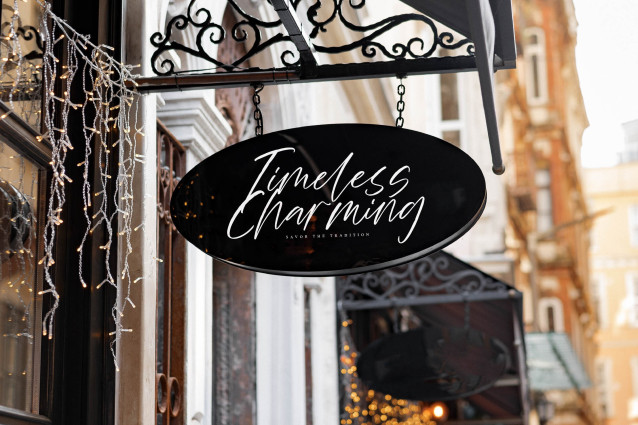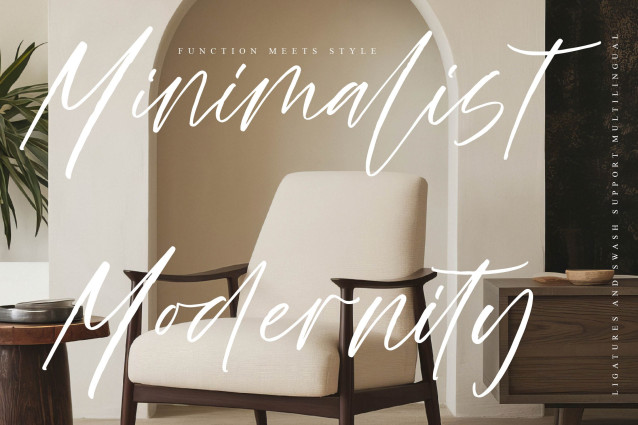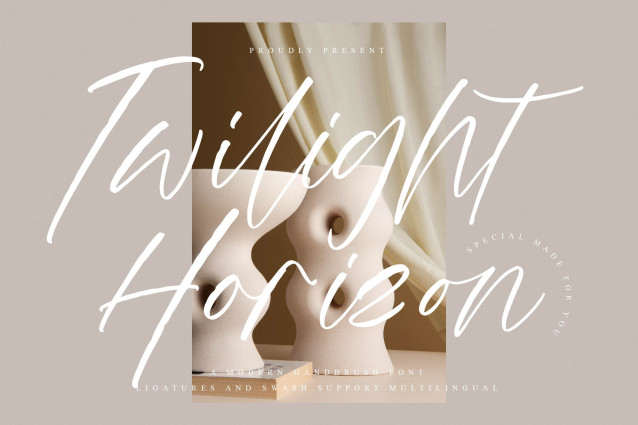
**Twilight Horizon** is a sophisticated handbrush script font that captures the beauty of natural brush strokes and contemporary elegance. Designed with expressive movement, graceful curves, and refined handwritten details, this typeface brings a sense of luxury, creativity, and authenticity to every project. Inspired by modern brush calligraphy and artistic signature lettering, **Twilight Horizon** combines fluid handwritten motion with refined typography craftsmanship to create a striking and memorable visual style.
Its dynamic brush texture and natural writing rhythm deliver typography that feels organic, expressive, and effortlessly stylish. The flowing letterforms and artistic brush movement create a powerful visual presence, making **Twilight Horizon** an excellent choice for brands and designers who want to communicate confidence, sophistication, and individuality. Carefully crafted ligatures and elegant swashes provide additional creative flexibility, allowing typography compositions to feel personalized and visually engaging. Whether you’re crafting luxury branding, fashion campaigns, social media graphics, wedding stationery, editorial layouts, or premium packaging, **Twilight Horizon** delivers a timeless handwritten brush aesthetic that blends modern elegance with artistic expression. Bold yet refined, this typeface is thoughtfully created for creatives who appreciate expressive typography, handcrafted beauty, and premium visual storytelling.